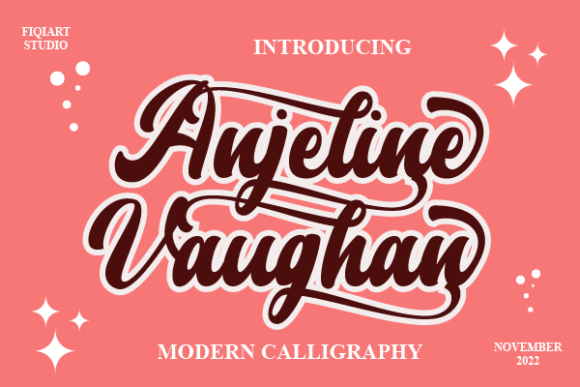
Journey into the World of Anjeline Vaughan: A Script Font that Captivates and Enchants
Step into a realm of elegance and grace with Anjeline Vaughan, a captivating script font that weaves a spellbinding tale with every letter it forms. Designed by the talented fiqiart, this font is a masterpiece of calligraphy, meticulously crafted to evoke a sense of timeless beauty and sophistication.
With its sweeping strokes and delicate flourishes, Anjeline Vaughan dances across the page like a ballerina, leaving a trail of enchantment in its wake. Its graceful curves and elegant lines lend an air of refinement to any project, whether it's a heartfelt wedding invitation, a whimsical greeting card, or a striking logo that commands attention.
More than just a collection of letters, Anjeline Vaughan is an expression of creativity, a symphony of shapes and forms that harmonize perfectly to create a visual masterpiece. Its versatility knows no bounds, adapting seamlessly to a myriad of design styles, from classic and traditional to modern and contemporary.
Unleash the Power of Anjeline Vaughan and Transform Your Creative Vision
With Anjeline Vaughan as your creative companion, you'll discover a world of possibilities, where your imagination can soar and your designs take on a life of their own. Let your words dance across the page, adorned with the exquisite beauty of this script font, and watch as they captivate and enchant your audience.
Create wedding invitations that evoke the romance and magic of a fairytale, thank you cards that express your gratitude with heartfelt elegance, and logos that exude a timeless sophistication that sets you apart from the rest. The possibilities are endless, limited only by the boundaries of your creativity.
Easy to Use and Accessible: Anjeline Vaughan Welcomes All
With Anjeline Vaughan at your fingertips, you'll find yourself reaching for it again and again, drawn to its undeniable charm and versatility. It's the perfect font for those who value elegance, sophistication, and the power of visual storytelling.